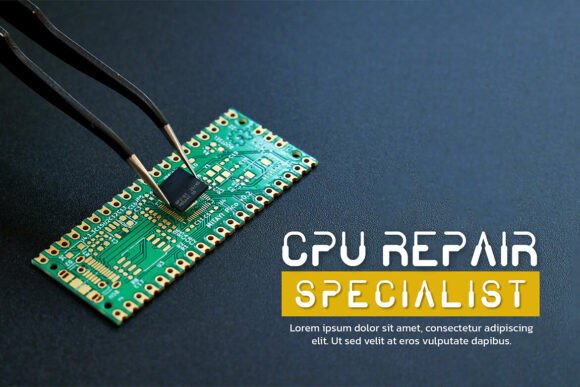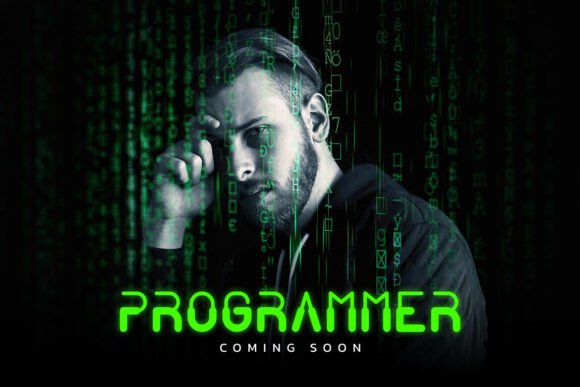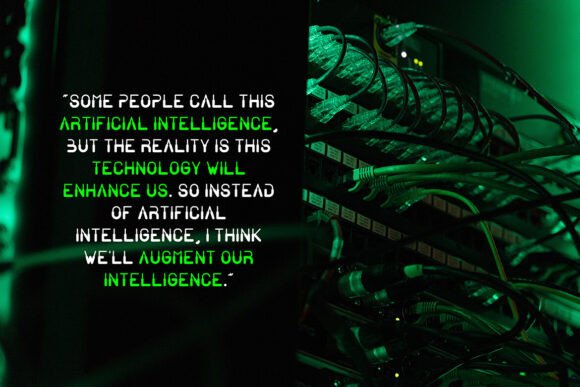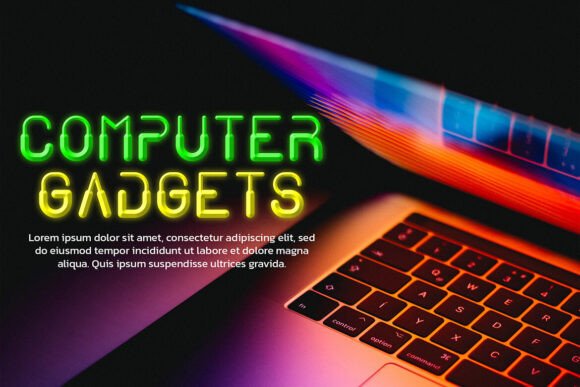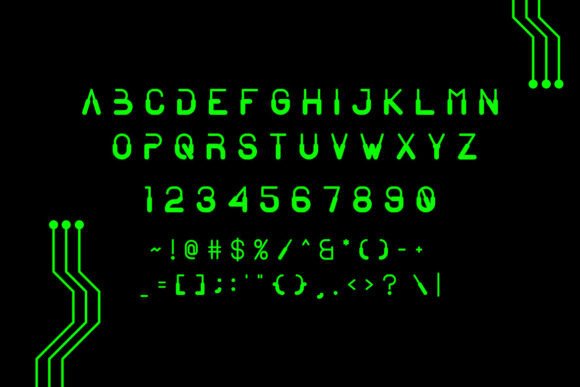
The Circuit Flow Font: A Futuristic Typeface for the Modern Creator
I’ll never forget the design project that led me to discover the Circuit Flow Font. I was working on a futuristic tech brochure, and my client asked for a font that would make their brand look cutting-edge and innovative. I spent hours scouring font libraries, but nothing seemed quite right – until I stumbled upon Circuit Flow. Its sleek, connected letters and digital circuit-inspired design immediately caught my eye, and I knew I’d found the perfect fit.
- ✅ Unique and memorable design: Circuit Flow’s futuristic look is sure to make your project stand out.
- ✅ Clean lines and digital feel: The font’s sleek design gives it a cutting-edge, high-tech vibe.
- ✅ Versatile: Circuit Flow works well for a variety of projects, from tech and science fiction to innovation and entrepreneurship.
Small Quirks and Limitations 🤔
- ⚠️ Limited use in body text: While Circuit Flow is stunning as a headline or title font, it may not be the best choice for longer blocks of text.
- ⚠️ Some letters may require adjustment: Depending on the word or phrase, you may need to tweak letter spacing to get the best look.
A Practical Guide: Using Circuit Flow in Your Design Projects
- Experiment with OpenType features, such as Stylistic Alternates, to add visual interest.
- Explore OpenType features, such as Glyphs and Stylistic Sets, to customize your text.
The Designer Inspiration Behind Circuit Flow
Circuit Flow was designed with the goal of creating a font that embodies the futuristic, high-tech spirit of innovation and technology. The designer’s inspiration came from the intricate patterns and connections found in digital circuits, which were translated into a sleek and modern typeface.
Q: What type of projects is Circuit Flow best suited for?
A: Circuit Flow is perfect for projects related to technology, science fiction, innovation, and entrepreneurship.
Q: Can I use Circuit Flow for body text?
A: While Circuit Flow is stunning as a headline or title font, it may not be the best choice for longer blocks of text.
Q: Does Circuit Flow support OpenType features?
A: Yes, Circuit Flow supports OpenType features, including stylistic alternates, glyphs, and stylistic sets.